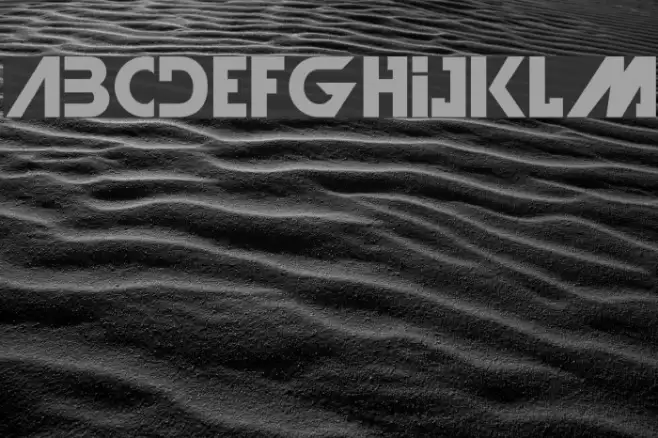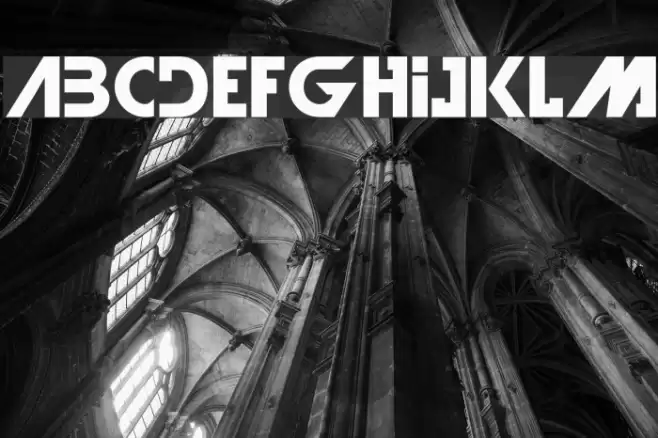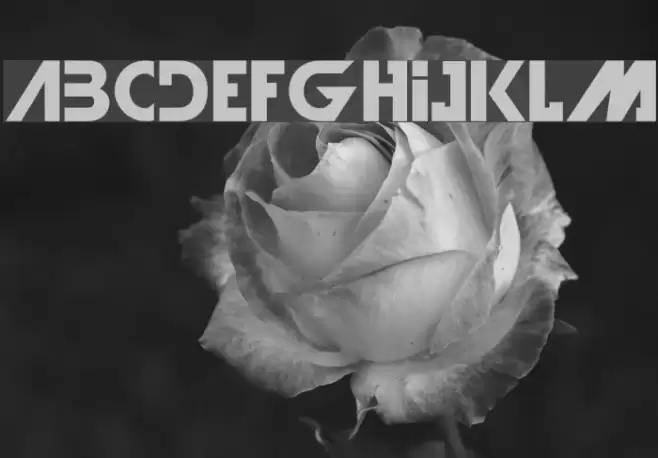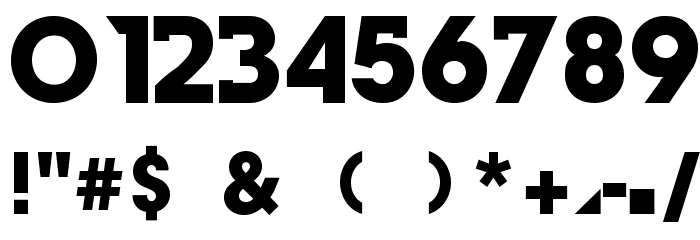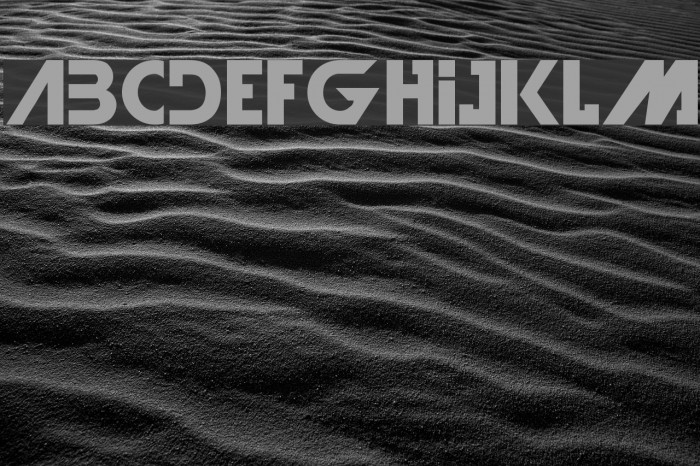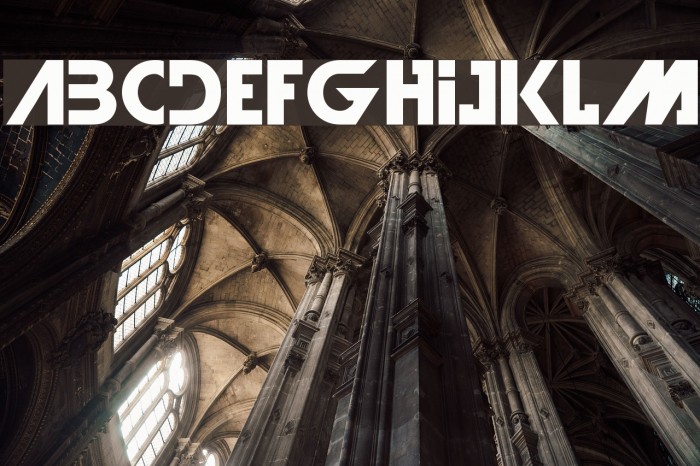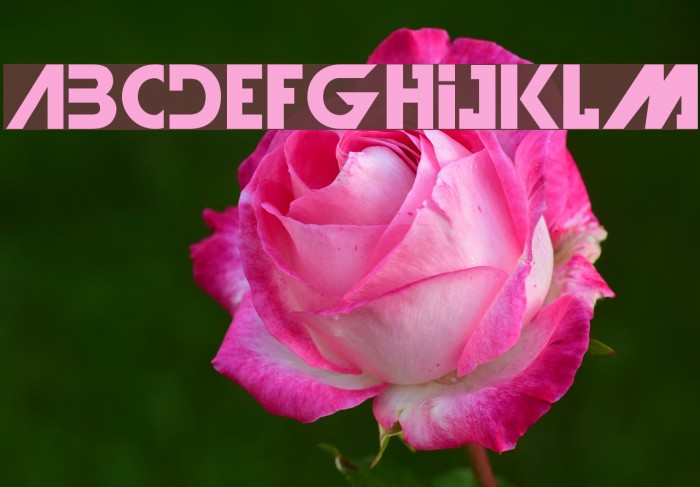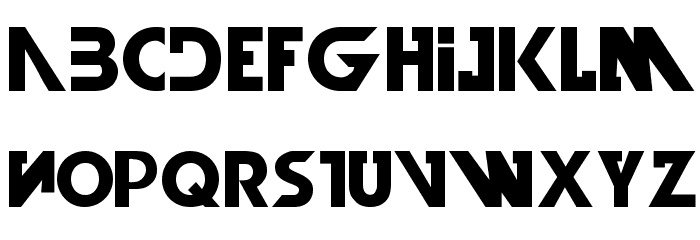
IllegalCurvesBold Font
IllegalCurvesBold Description
This font features a bold and geometric style with sharp angles and clean lines. The characters are designed with a futuristic and modern aesthetic, making use of strong diagonal cuts and unique shapes. The uppercase letters are particularly striking, with a consistent height and width that create a uniform appearance. The numerals and special characters maintain the same boldness and angular design, ensuring a cohesive look across all elements. This font is ideal for projects that require a strong visual impact and a contemporary feel.
A bold, geometric font with sharp angles and a modern aesthetic from Uncategorized fonts.
- Proposed Projects: Ideal for branding, posters, headlines, and any design needing a strong, modern impact.